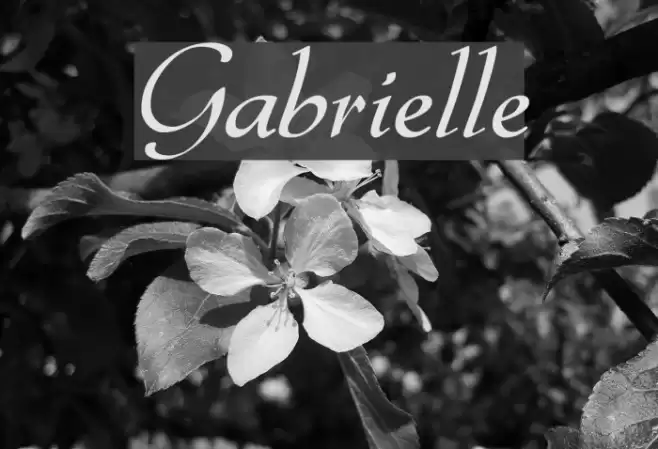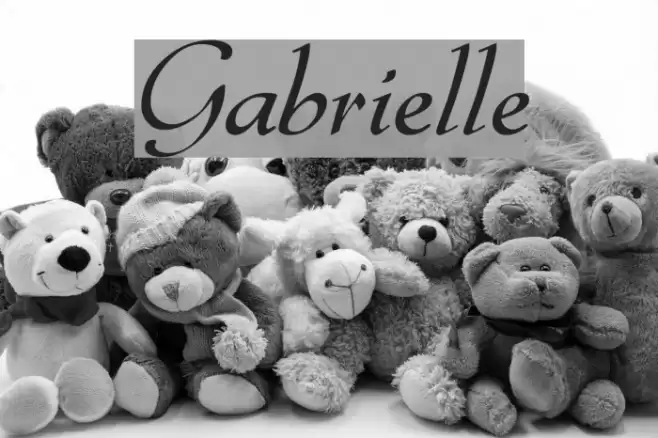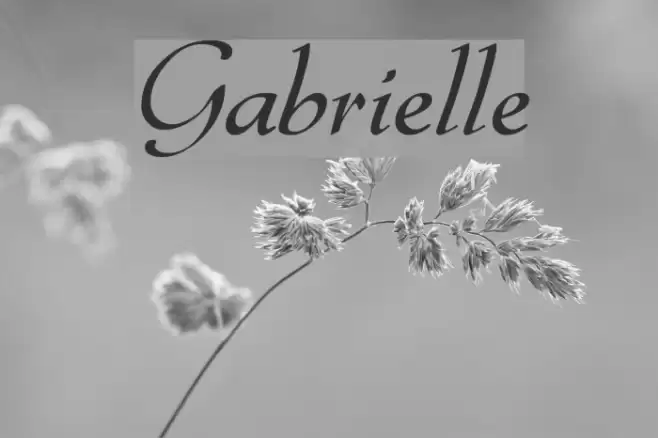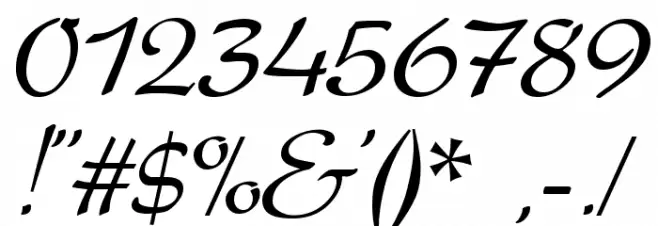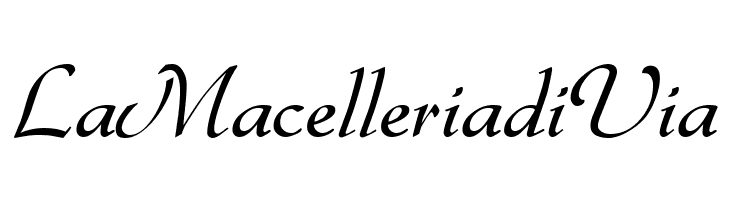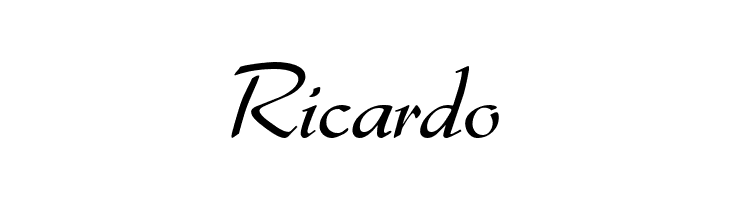
Gabrielle Font
Gabrielle Description
This elegant script font features a flowing, cursive style with smooth, sweeping curves and a refined appearance. The uppercase letters are characterized by their graceful loops and flourishes, while the lowercase letters maintain a consistent, connected flow. The numerals are designed with a similar flair, adding a touch of sophistication. The special characters complement the overall aesthetic, making it suitable for formal and decorative applications. The font's design conveys a sense of elegance and tradition, ideal for projects that require a touch of class and refinement.
An elegant script font with flowing, cursive style and graceful curves from Calligraphic fonts.
- Proposed Projects: Wedding invitations, formal event programs, elegant branding, and luxury product packaging.
- Overall Style: Elegant, Traditional
- Use Case: Invitations, Branding, Decorative text